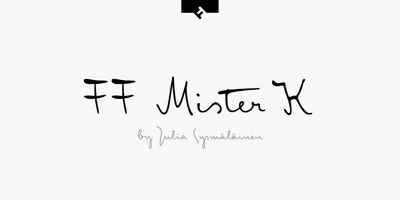
FF Mister K Font
FF Mister K Font is ideal for creative projects, artistic posters, album covers, book titles, fashion magazines, quirky branding initiatives, and experimental design layouts that require distinctive character.
What makes FF Mister K Font exciting is its playful and unconventional design approach, featuring unique letterforms that break traditional typography rules while maintaining excellent readability and artistic expression.
The FF Mister K Font family includes Regular, Bold, and Condensed versions, along with special character sets and alternative glyphs that provide designers with extensive creative flexibility and stylistic options.
FF Mister K Font stands out as one of the most distinctive and creative typefaces available today. This remarkable font pushes the boundaries of conventional typography with its bold, experimental design that captures attention and makes a lasting impression on viewers. The font's innovative approach to letter construction creates a unique visual identity that sets any project apart from standard typographic solutions.
Creative professionals consistently choose FF Mister K Font for projects that demand originality and artistic flair. The typeface's unconventional structure and playful personality make it perfect for brands and designers who want to communicate creativity, innovation, and forward-thinking approaches. Each character in this font tells a story, creating engaging visual narratives that resonate with contemporary audiences seeking authentic and memorable design experiences.
The versatility of FF Mister K Font extends beyond its striking appearance to include practical applications in various design contexts. Whether used for headlines, logos, or display text, this font maintains its impact while ensuring readability across different sizes and applications. The careful balance between artistic expression and functional design makes it suitable for both digital and print media.
Design agencies and independent creatives frequently incorporate FF Mister K Font into their most ambitious projects because of its ability to transform ordinary text into extraordinary visual elements. The font's distinctive character adds personality and energy to any design, making it particularly effective for brands targeting younger demographics or industries that value creativity and innovation. Its unique aesthetic helps establish strong brand recognition and memorable visual communication that stands out in today's crowded marketplace.